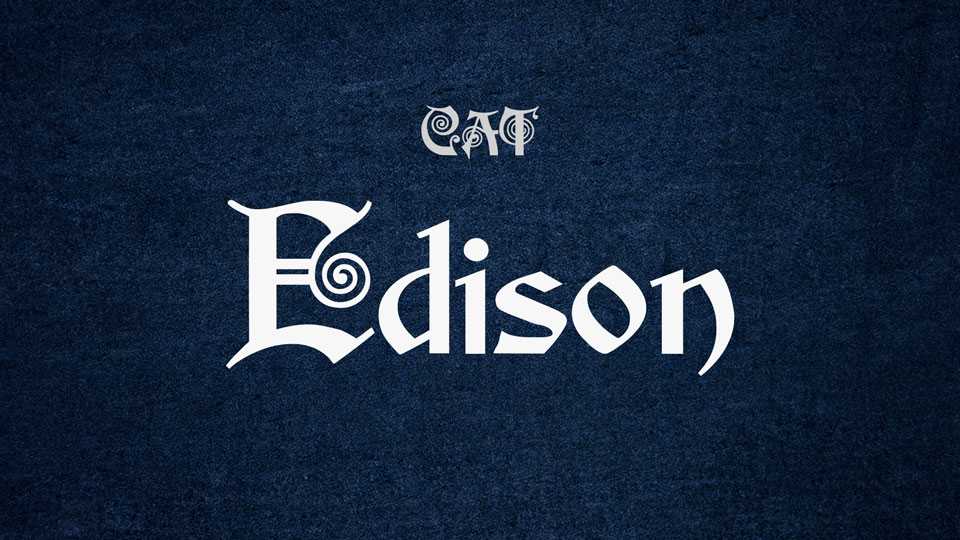
Download Edison font, a fancy typeface with terminals majestically looping and twirling in a circular fashion, quickly takes us back to the Victorian era of type.